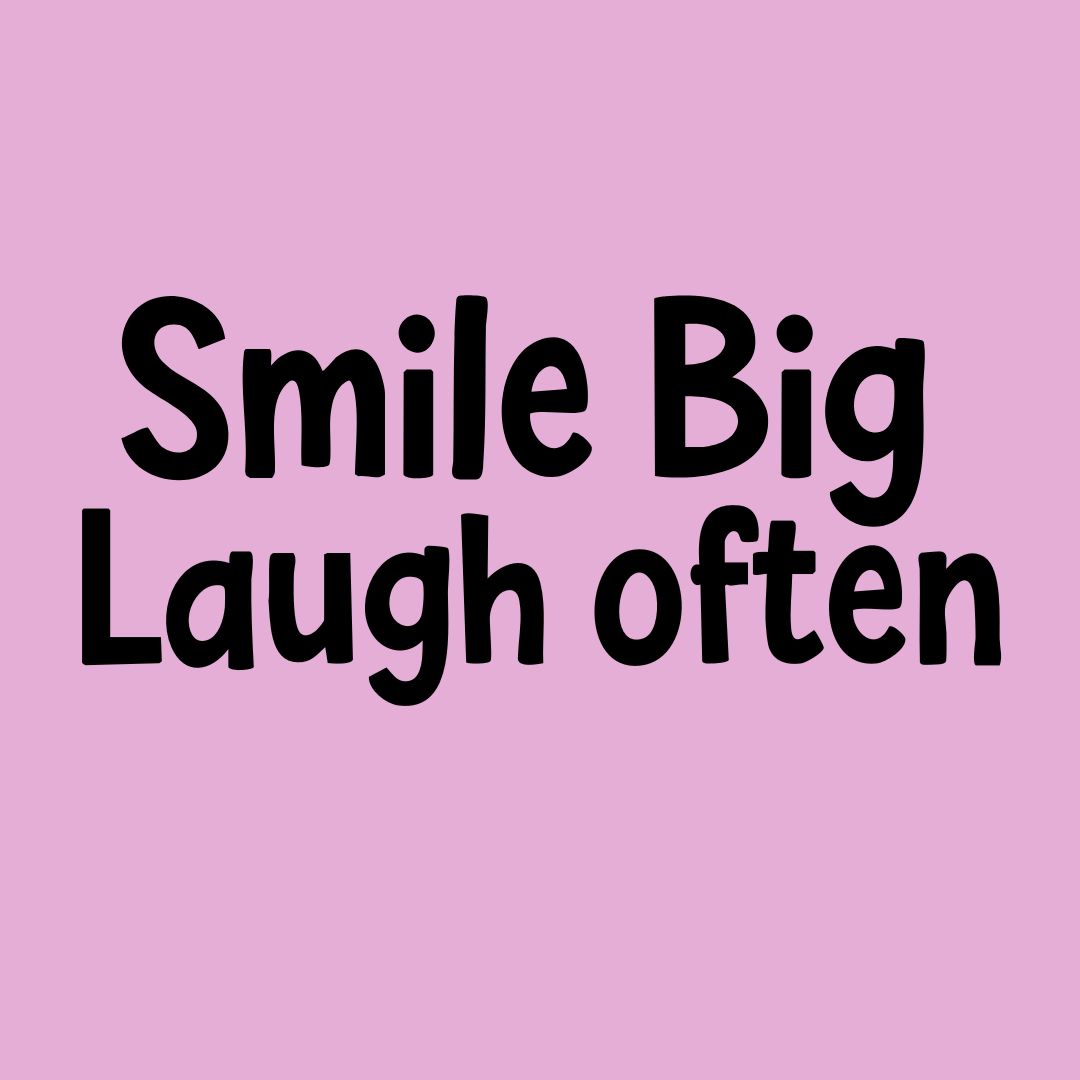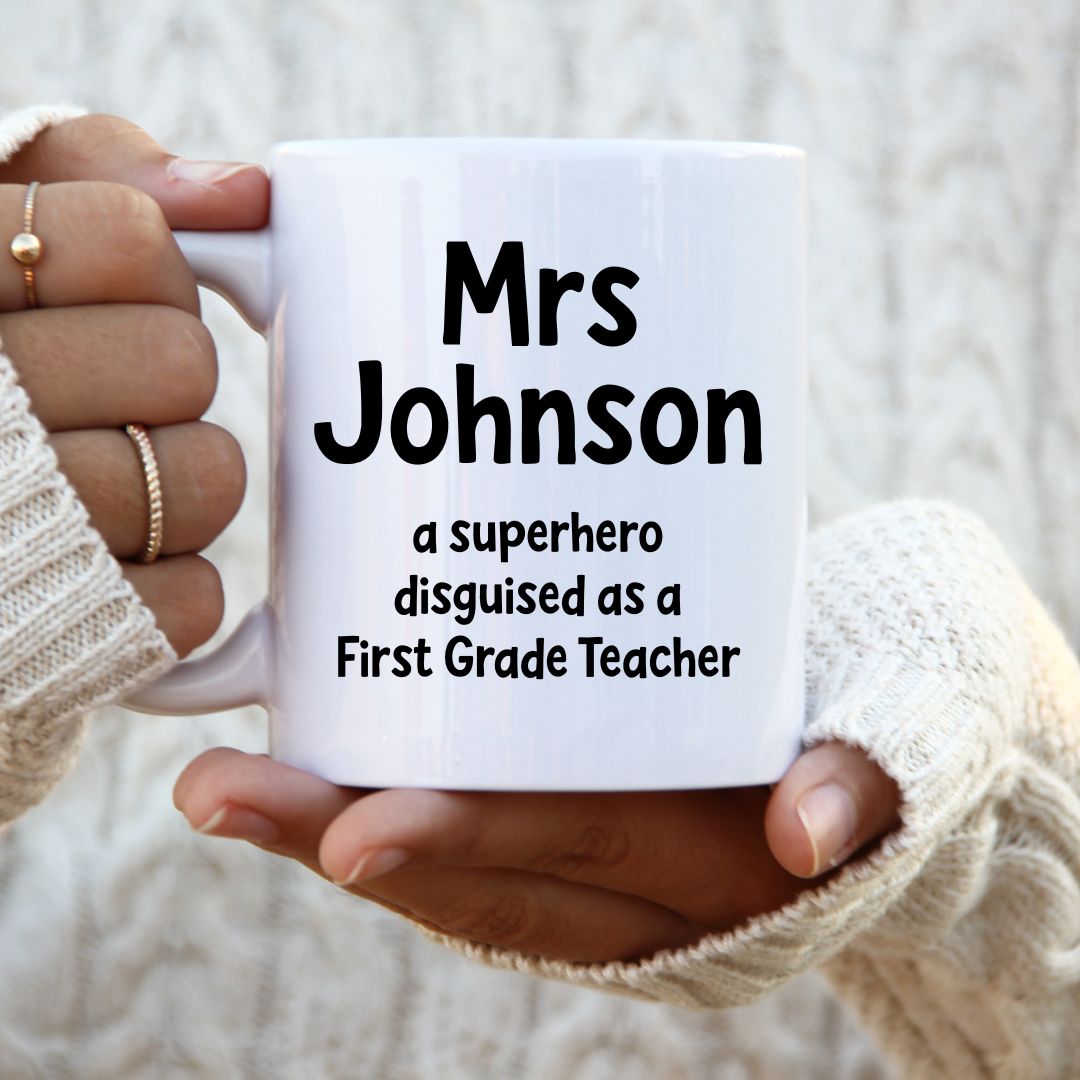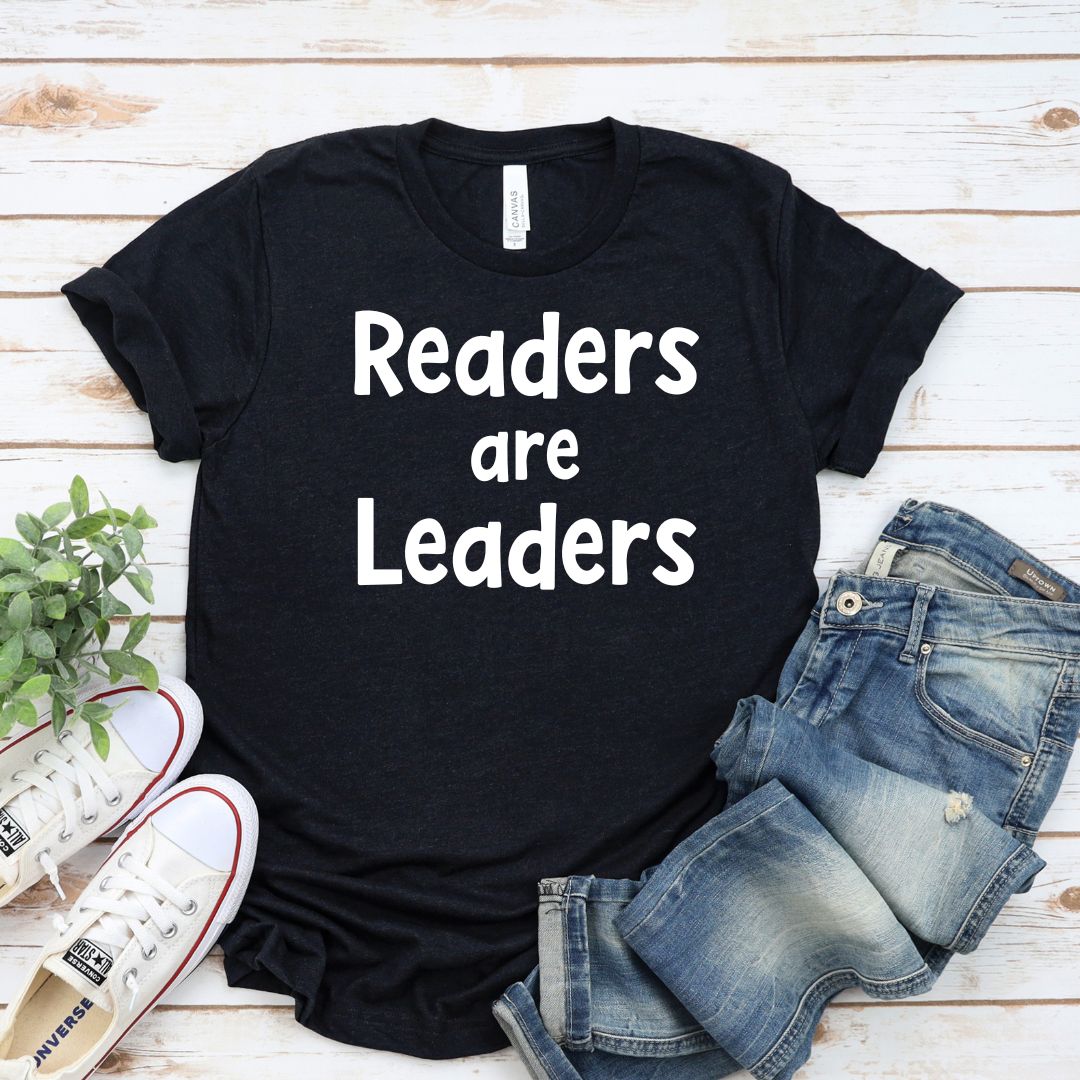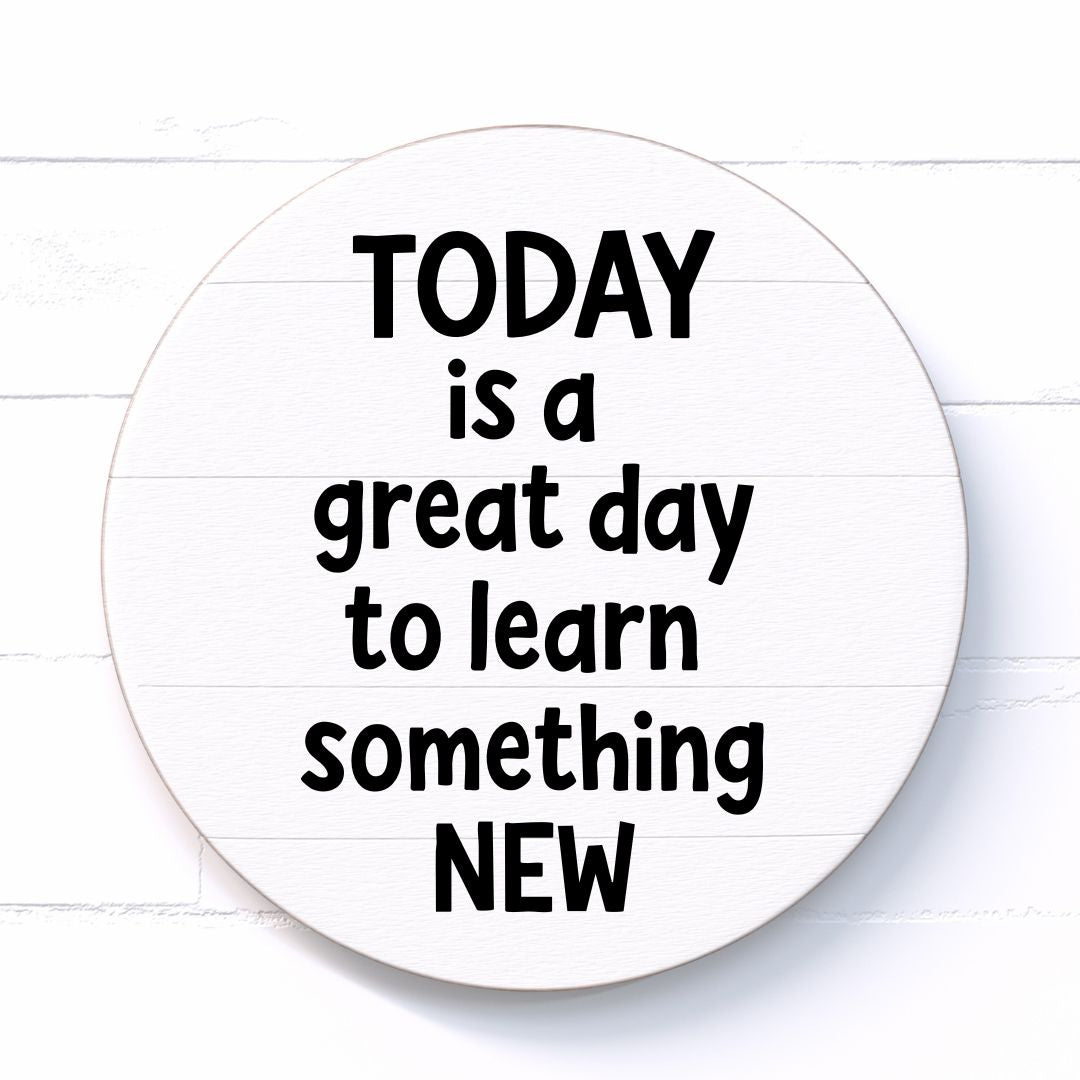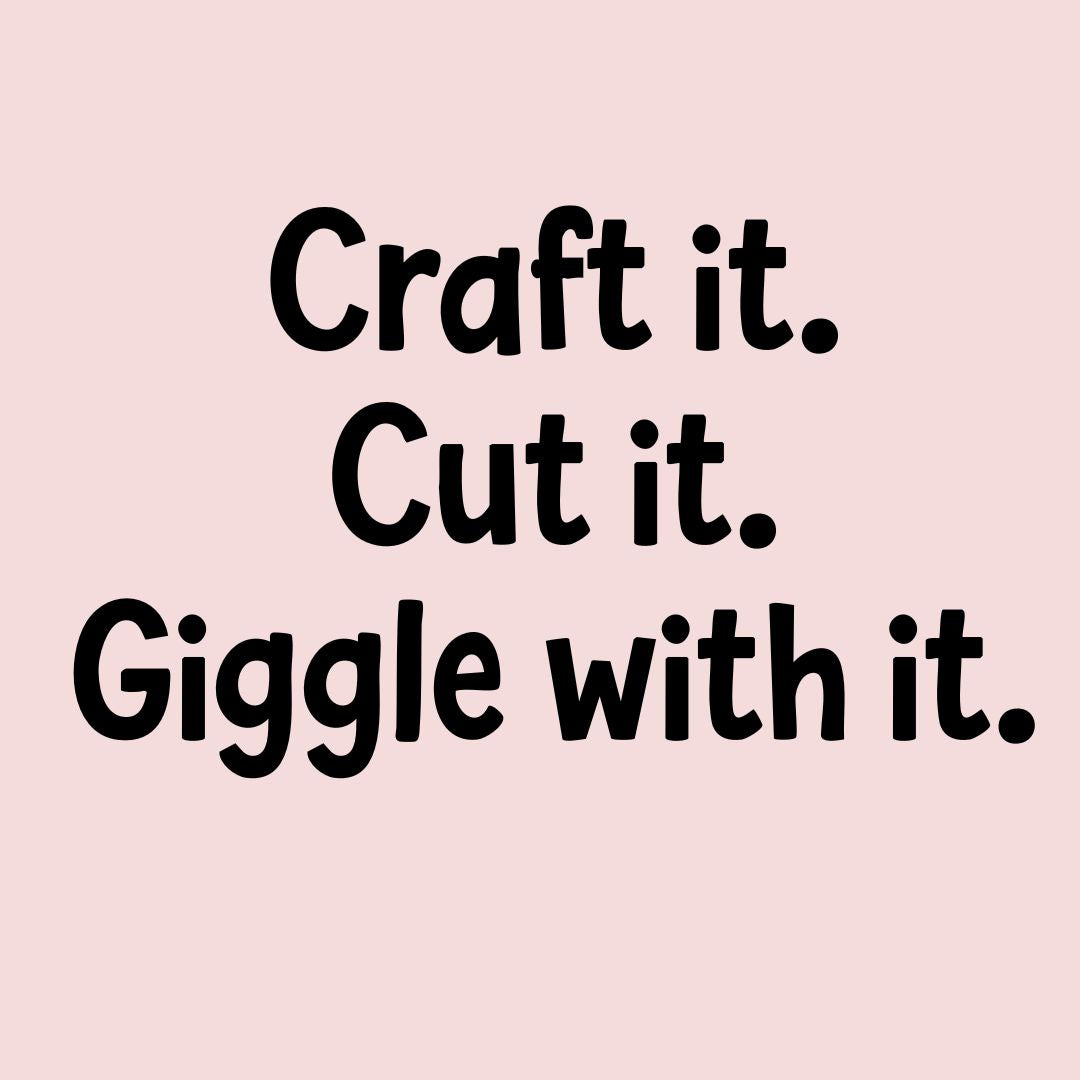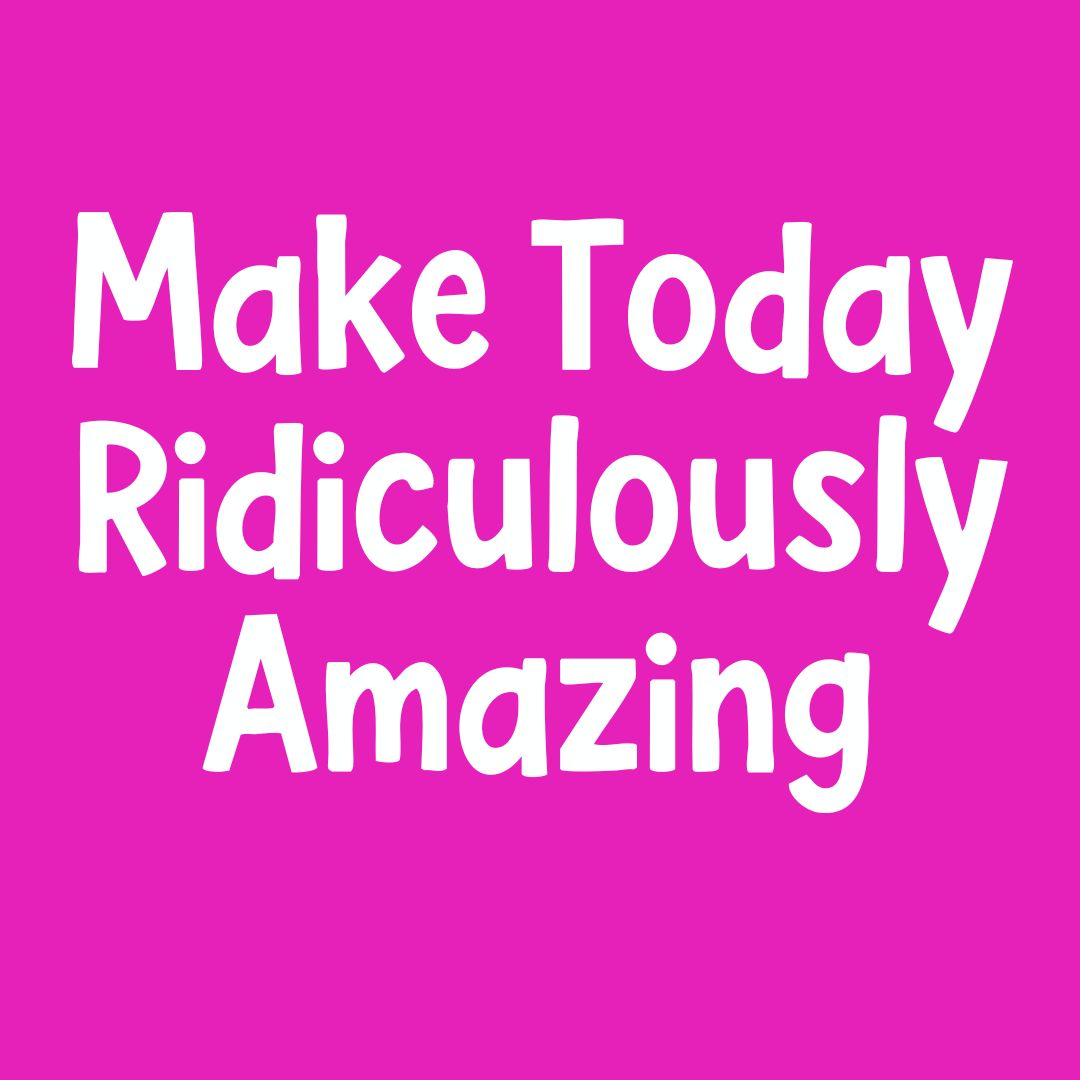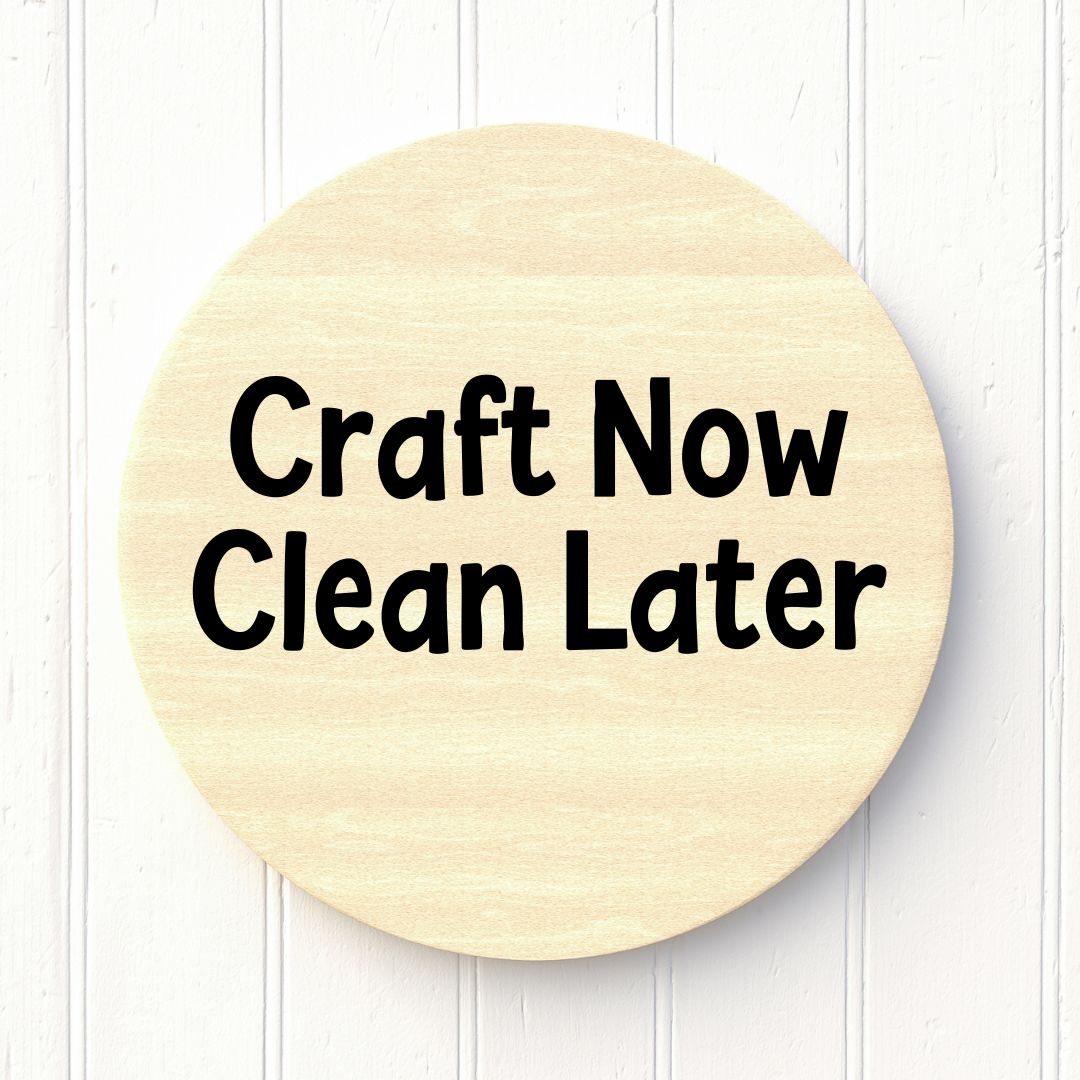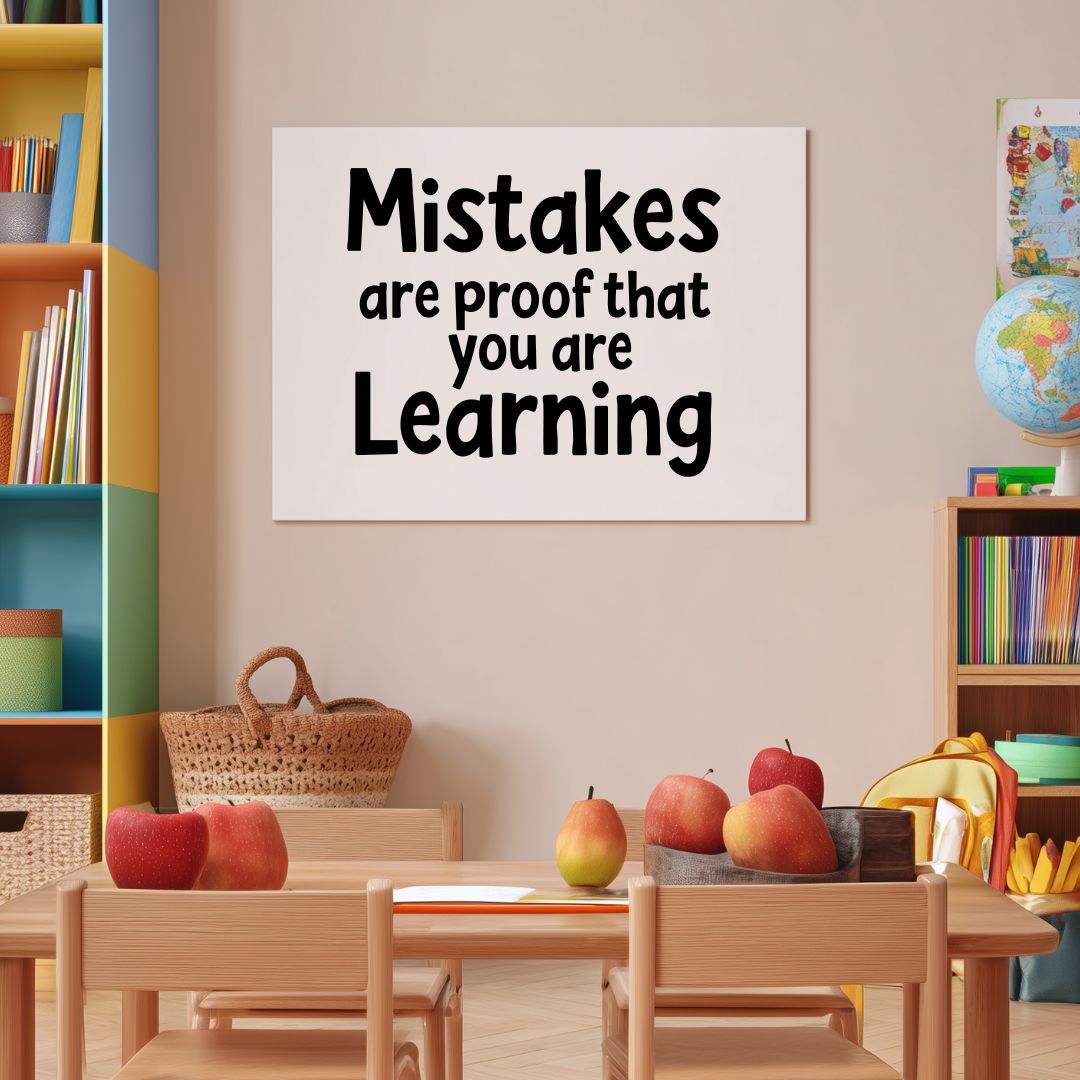
Gigglish Font – Fun Whimsical Doodle Font
Gigglish is a bold, whimsical doodle font designed for teachers, Cricut users, crafters, and creatives who love a fun and bouncy letter style. This all-in-one font includes uppercase and lowercase letters, numbers, and punctuation.
- ✅ Uppercase & lowercase letters
- ✅ Numbers, punctuation, and symbols
🧁 Perfect For:
- Cricut & Silhouette projects
- Procreate artwork
- Stickers, logos, signage
- Teacher printables and classroom visuals
- Scrapbooking and party decor
- Printable Classroom Decor
- Goodnotes & Digital Planner Stickers
- Cricut SVG Projects
- Kids Birthday Invites & Party Labels
- Procreate Lettering & Crafts